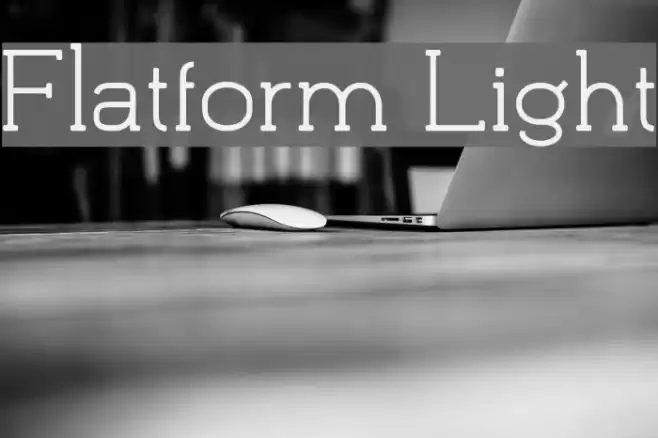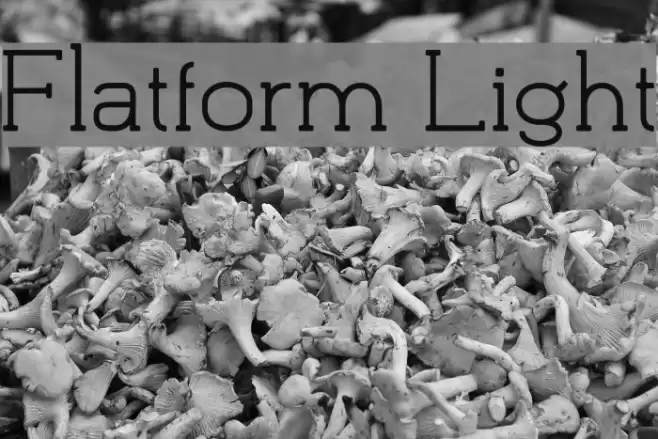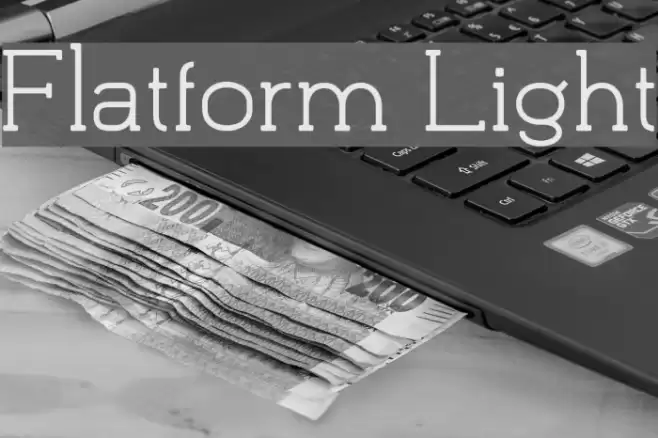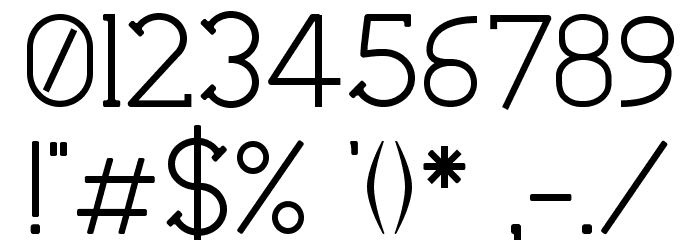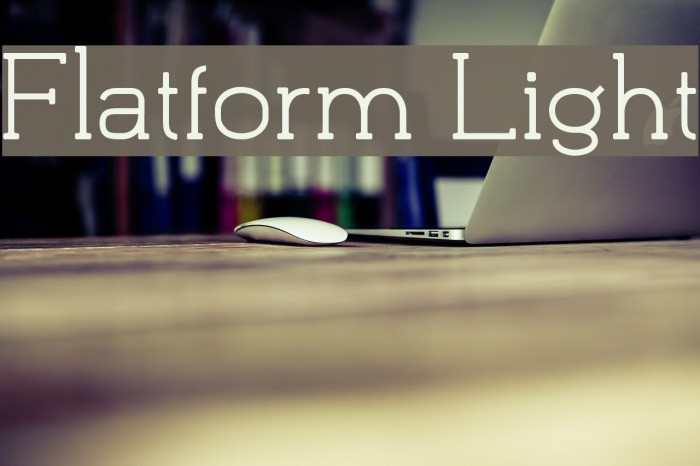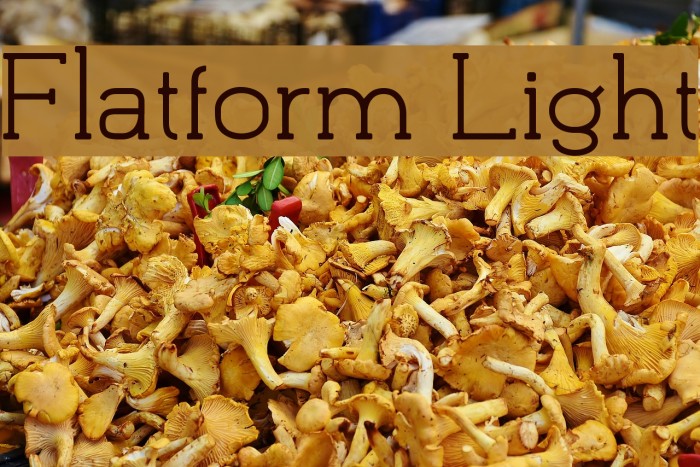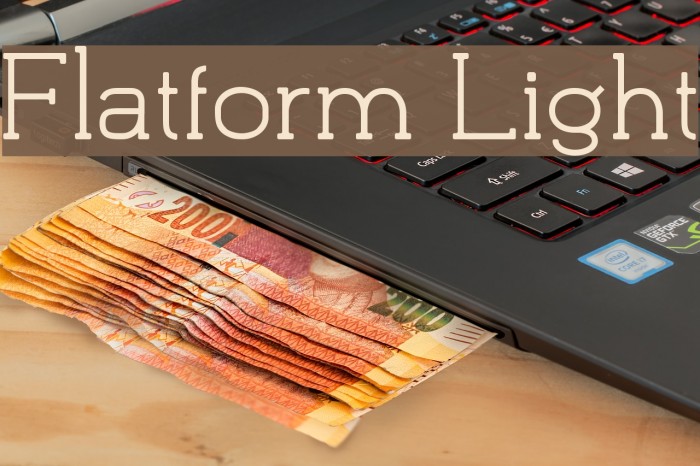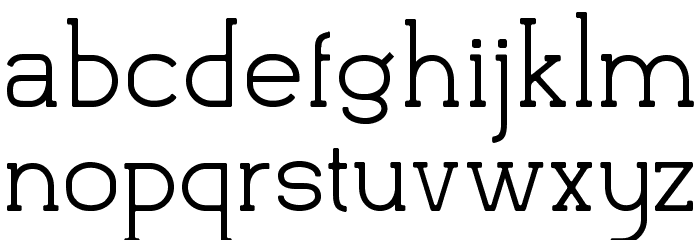
Flatform Light Font
Flatform Light Description
This font exhibits a clean and modern design with a geometric structure. The characters are evenly spaced, providing a balanced and harmonious appearance. The uppercase letters are tall and slightly narrow, while the lowercase letters maintain a consistent height, contributing to a uniform look. The numerals are distinct and clear, making them easily readable. Special characters are well-integrated, matching the overall aesthetic of the font. The strokes are consistent in weight, offering a sleek and professional feel suitable for various applications.
A modern, geometric font with consistent strokes and balanced spacing from Serif fonts.